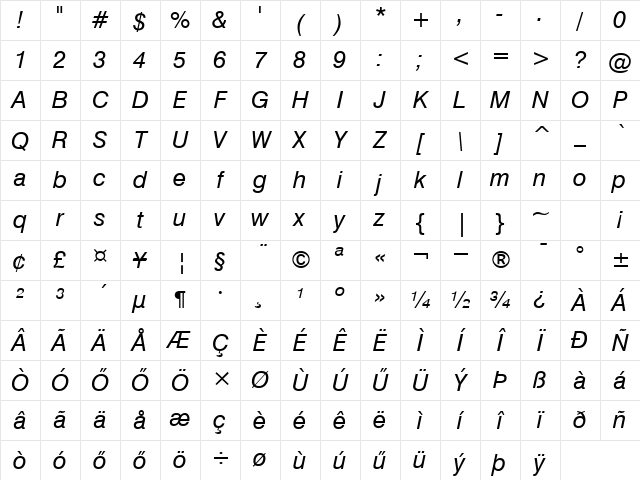
H_Swiss 721 BT Italic
H_Swiss 721 BT Family
Complete H_Swiss 721 BT Italic glyph index. Displaying only characters natively supported by H_Swiss 721 BT Italic font.
Design Context for H_Swiss 721 BT
H_Swiss 721 BT is a composed and adaptable typeface that performs quietly and consistently across a wide range of design contexts. The slanted form adds forward momentum and visual energy.
Pro Tip: Use H_Swiss 721 BT for emphasis, pull quotes, and subheadings where its slanted energy can add rhythm to the layout.